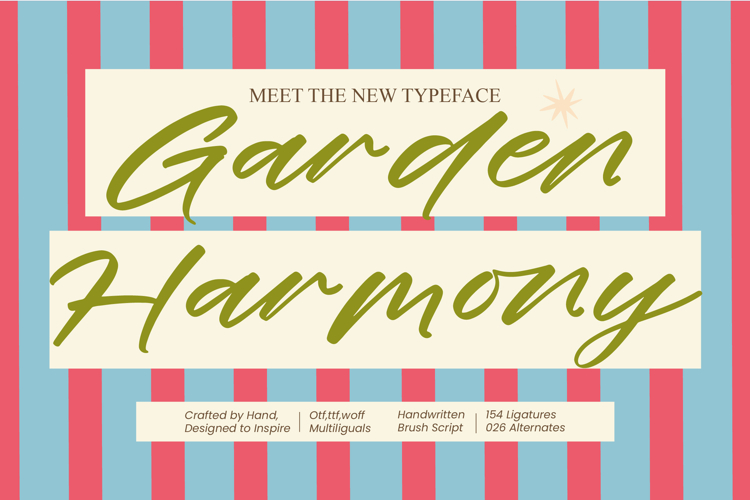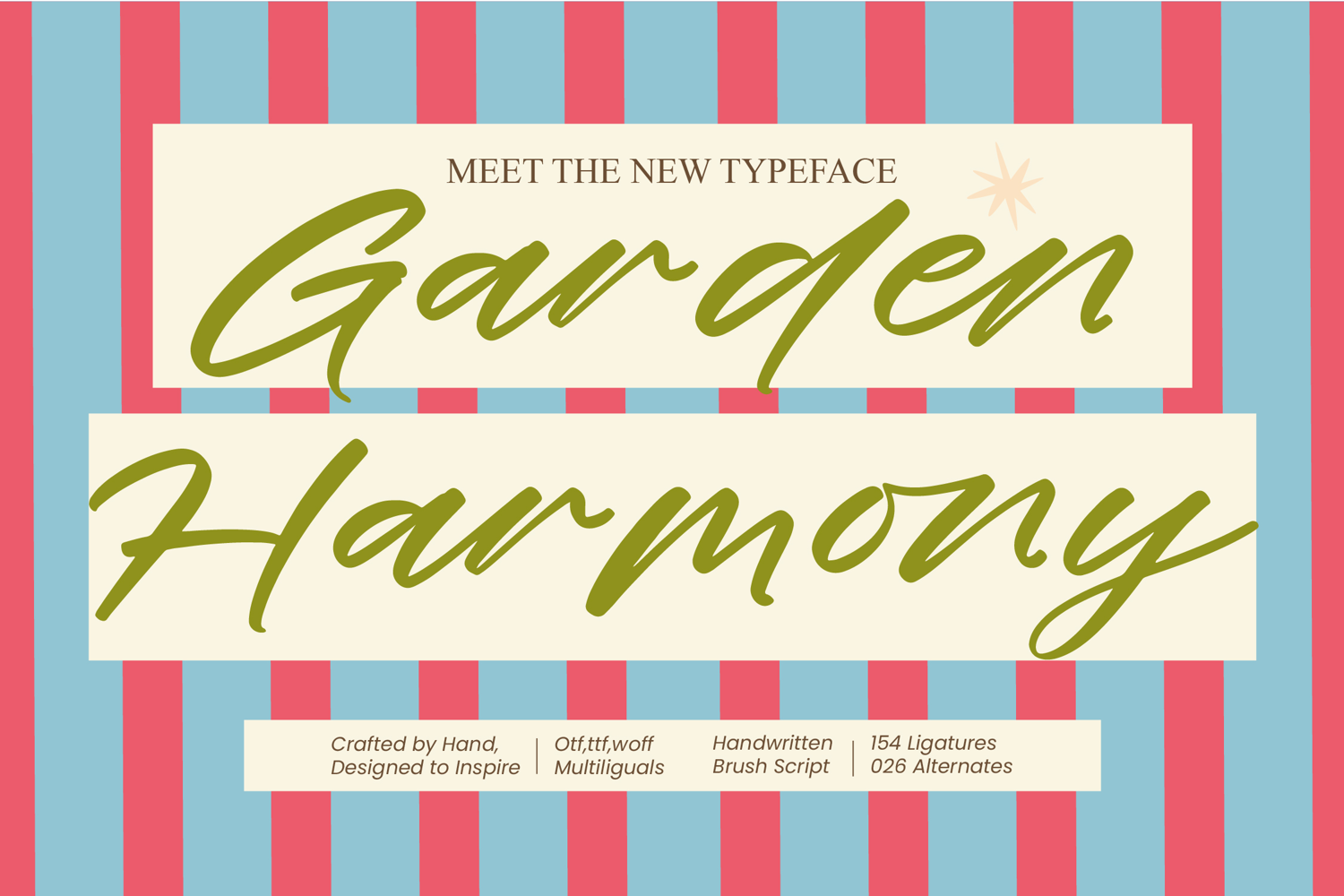
Garden Harmony - Handwritten Brush Script
Elevate your creative vision with a typeface that embodies organic elegance and effortless flow. Garden Harmony - Handwritten Brush Script is a meticulously designed font that captures the authentic texture of hand-crafted brush strokes. Its balanced weight and natural rhythm make it an essential tool for designers seeking to inject expressive and warmth into their visual storytelling across all platforms.
Discover the perfect typographic partner for high-end branding and artisanal projects. This versatile script is perfect for luxury branding, premium packaging, and lifestyle content that requires a , human touch. From editorial design to bespoke wedding invitations and logo creation, Garden Harmony - Handwritten Brush Script provides a sophisticated aesthetic that resonates with modern audiences looking for authenticity.